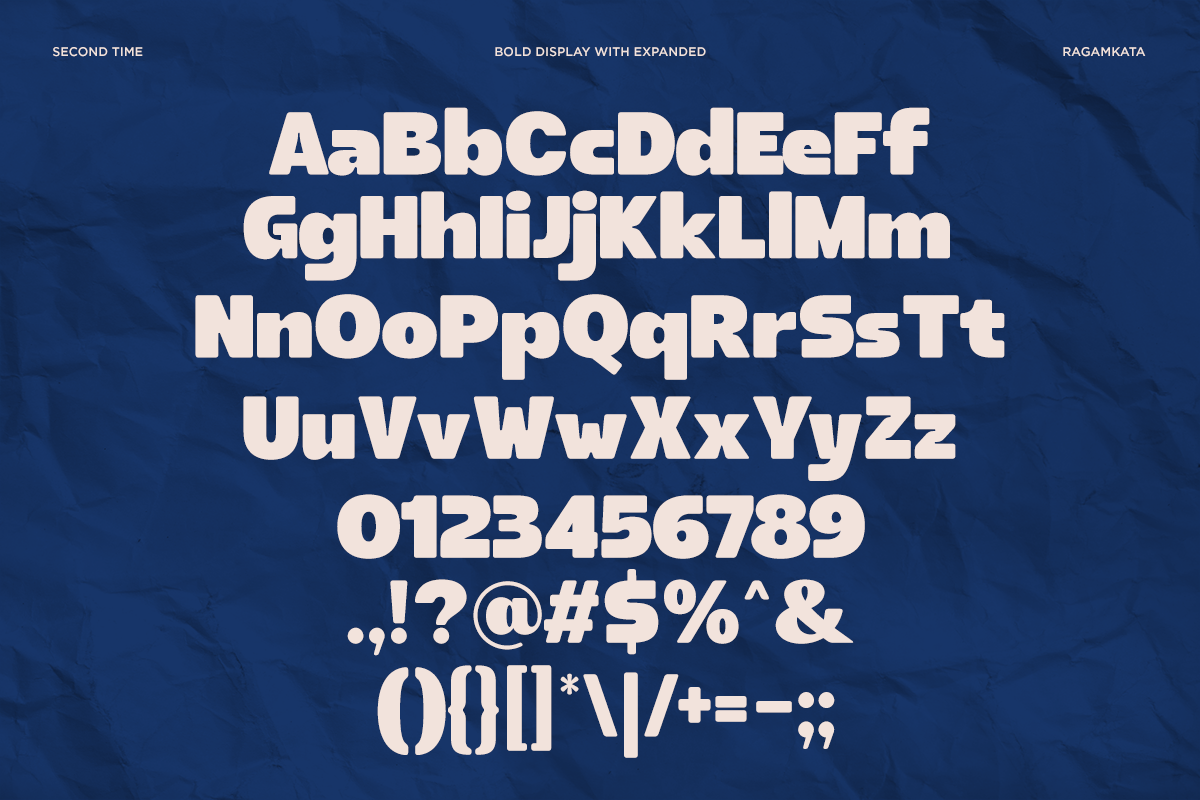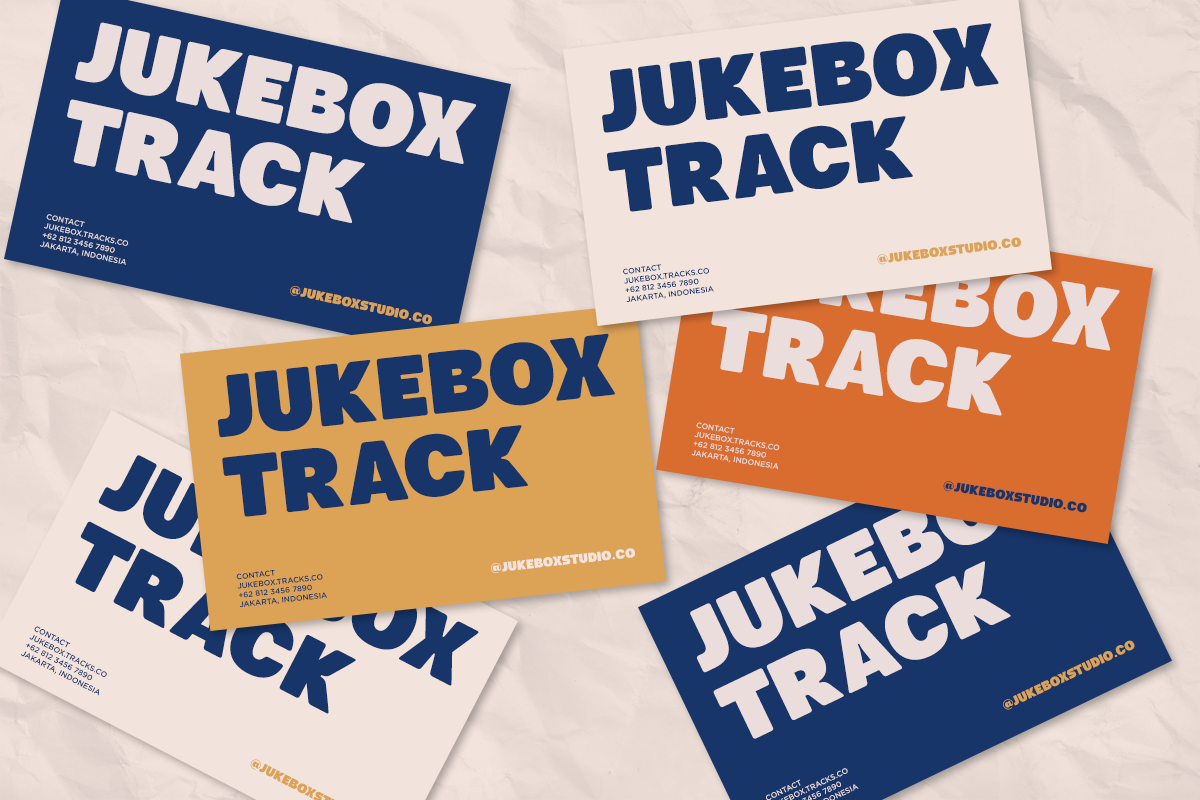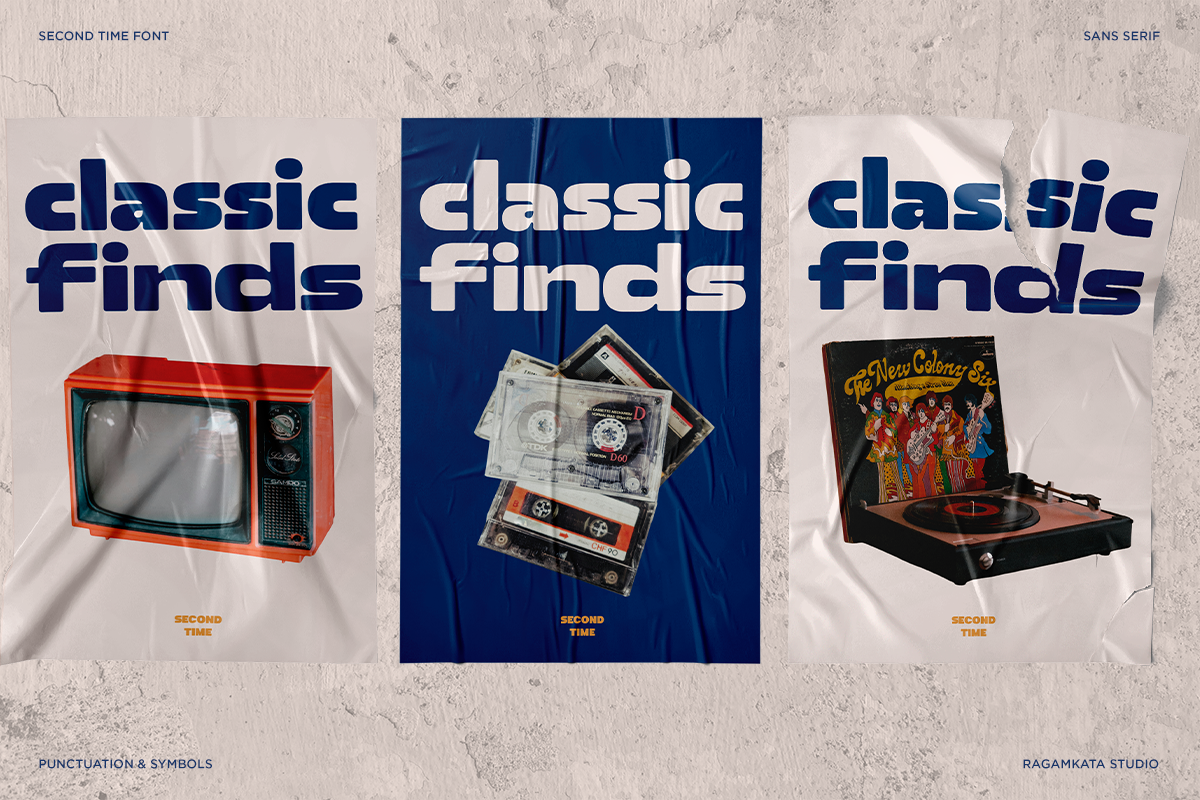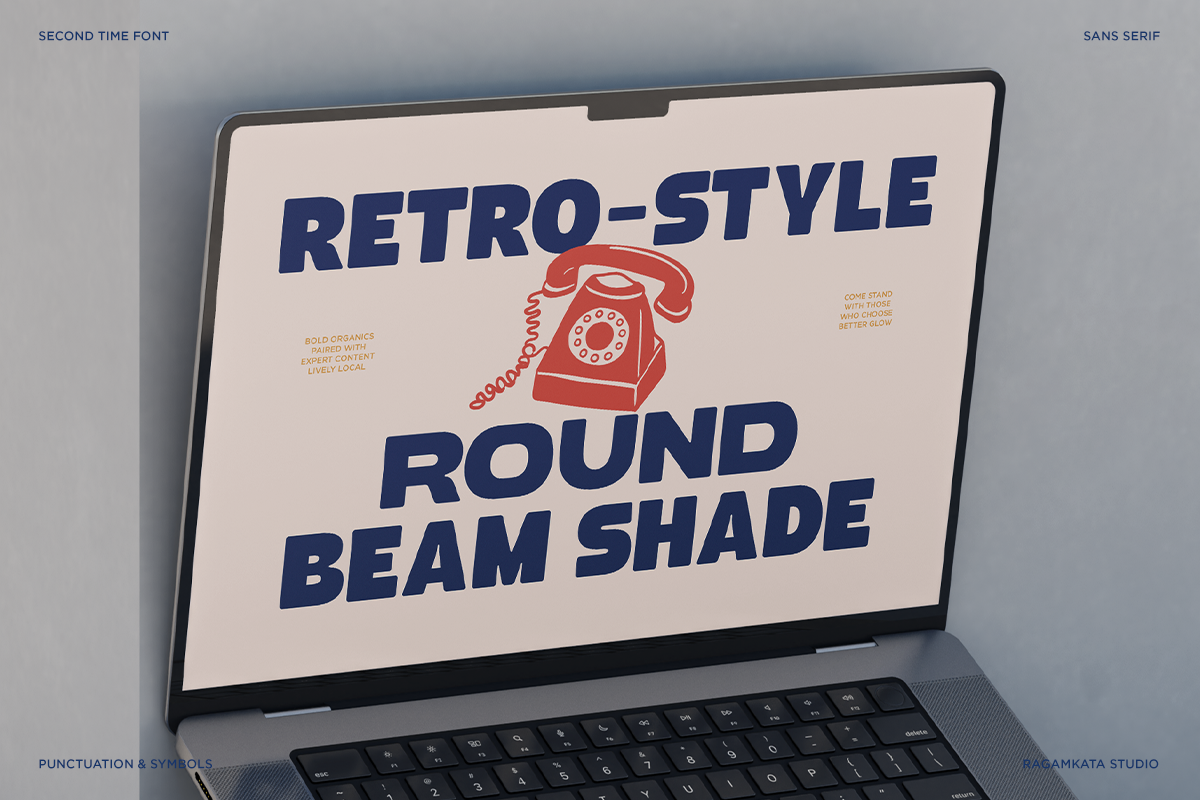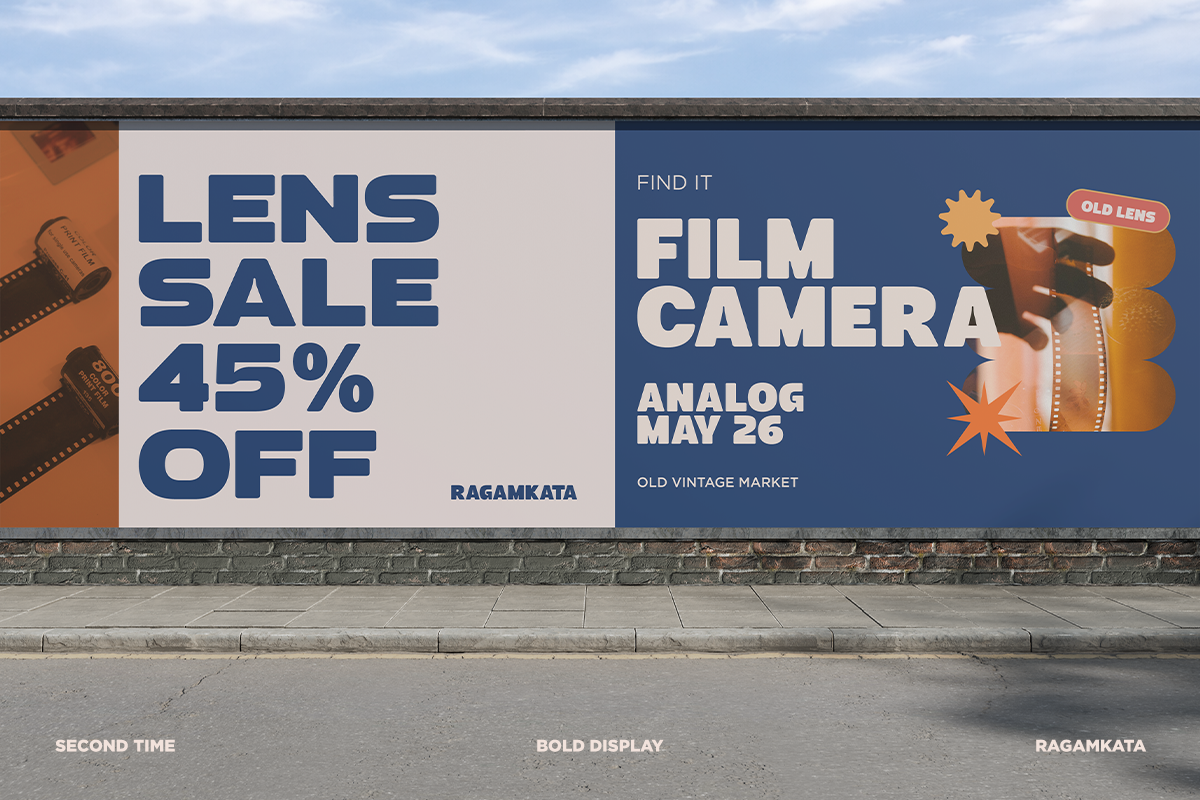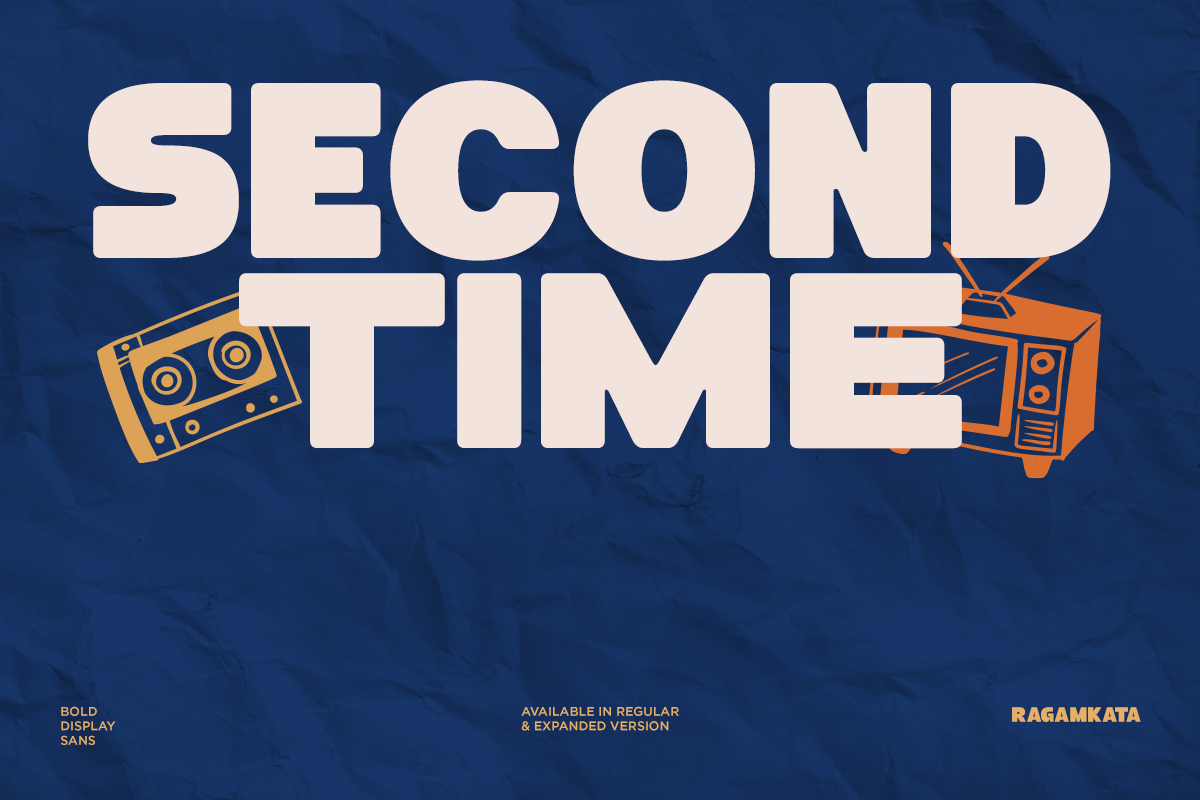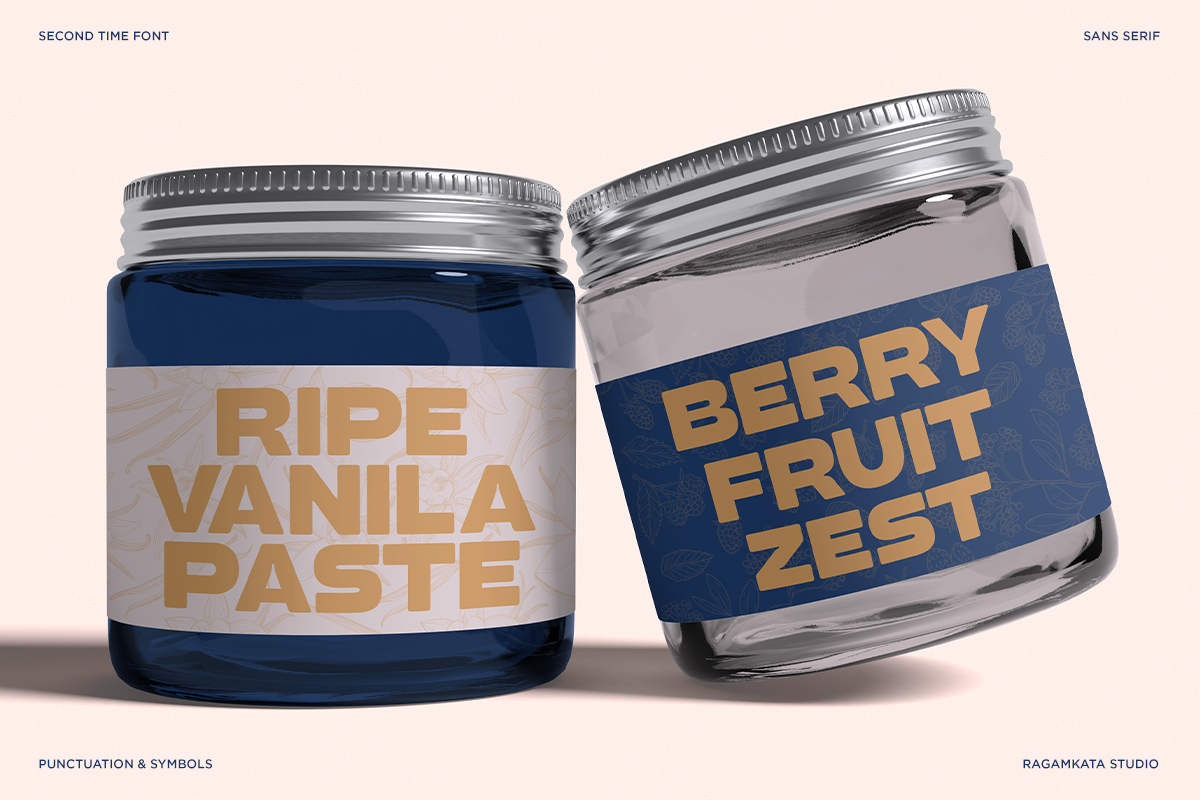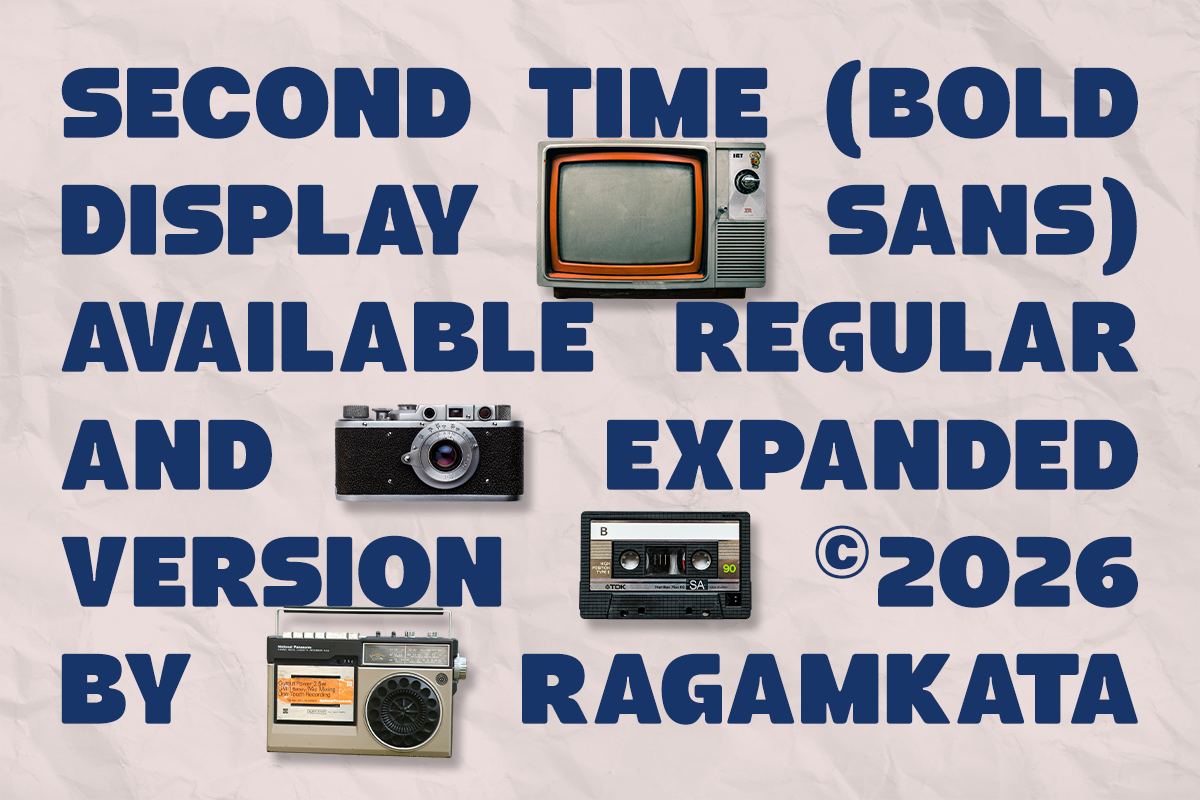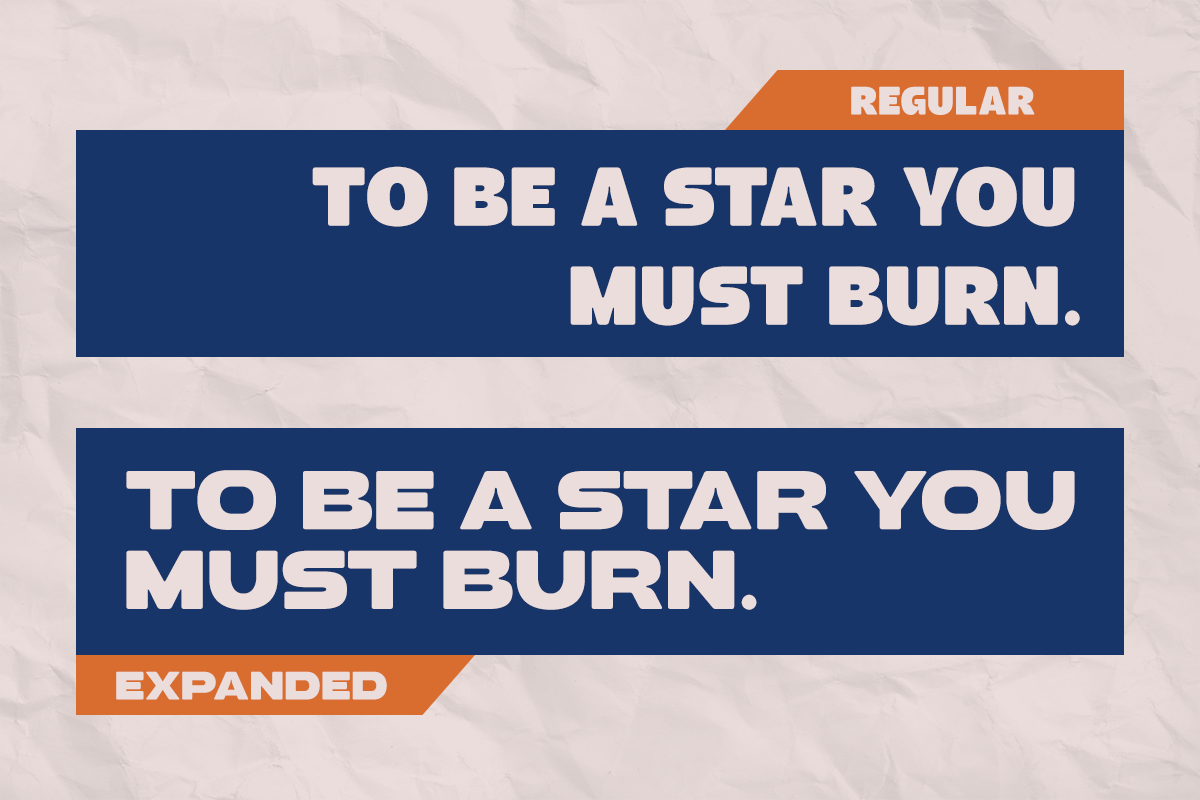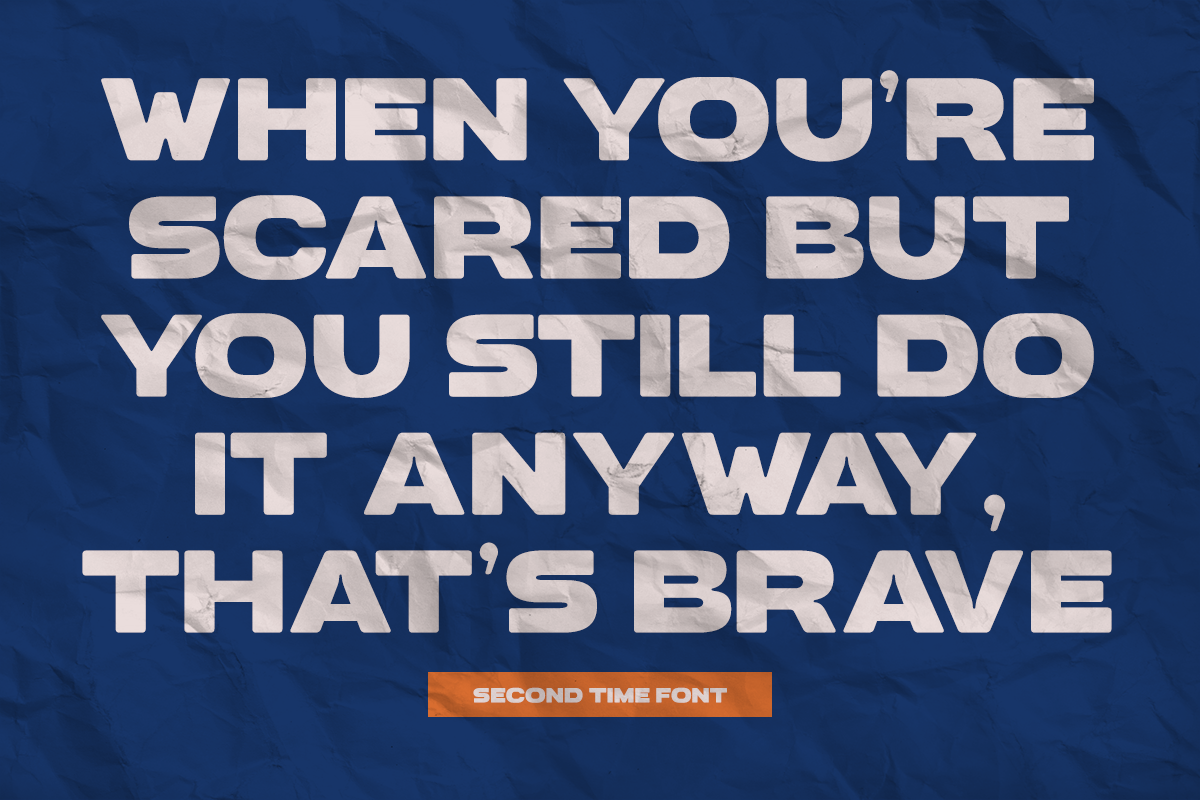
Second Time - Bold and Expanded Font
Second Time is a bold retro display sans font family designed to make a strong visual impact. Inspired by vintage sports graphics, classic advertising, and nostalgic typography, it delivers confident letterforms that stand out across branding, posters, packaging, apparel, editorial layouts, and social media designs. Its clean geometry and chunky proportions create a timeless retro personality while remaining highly readable.
The family includes four versatile styles: Regular, Expanded, Italic, and Expanded Italic, giving designers greater flexibility for expressive typography. Whether you're creating energetic headlines, vintage logos, merchandise, magazine covers, product packaging, or promotional campaigns, Second Time provides the perfect combination of boldness and retro charm.
Perfect for logos, branding, apparel, café identities, music artwork, sports graphics, YouTube thumbnails, advertising, packaging, posters, and creative editorial projects. Included files: OTF, TTF, and WOFF, making it ready for both print and digital use.
4 Variations Style
Regular, Italic, Expanded, Italic Expandeed
Number, Symbol, and Punctuation
Multi Language Support